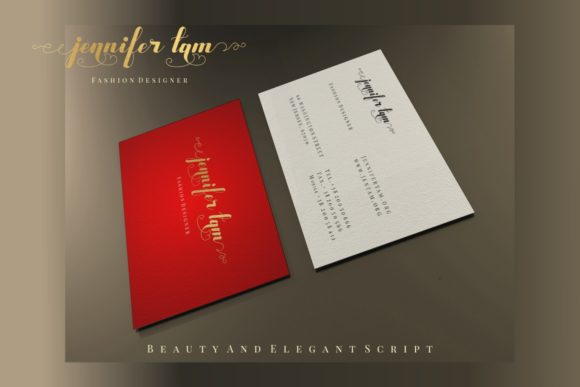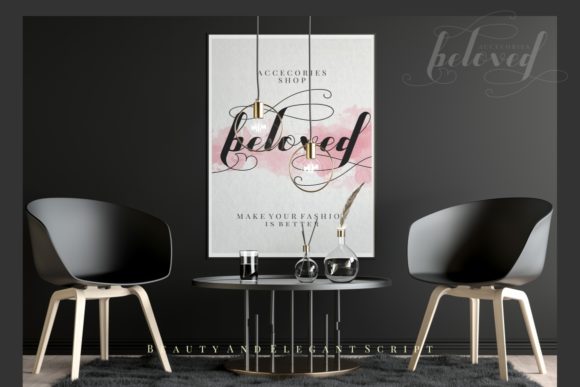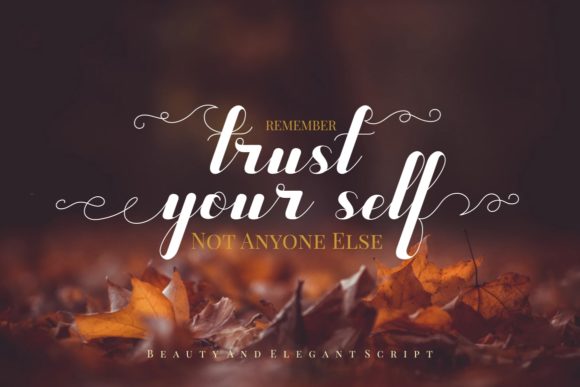
About Emila Font
Emila is a flowing handwritten font, described by an elegant touch, perfect for your favorite projects. Fall in love with its incredibly distinct and timeless style and use it to create spectacular designs! This font is PUA encoded which means you can access all of the glyphs and swashes with ease! It features a varying baseline, smooth lines, gorgeous glyphs and stunning alternates.